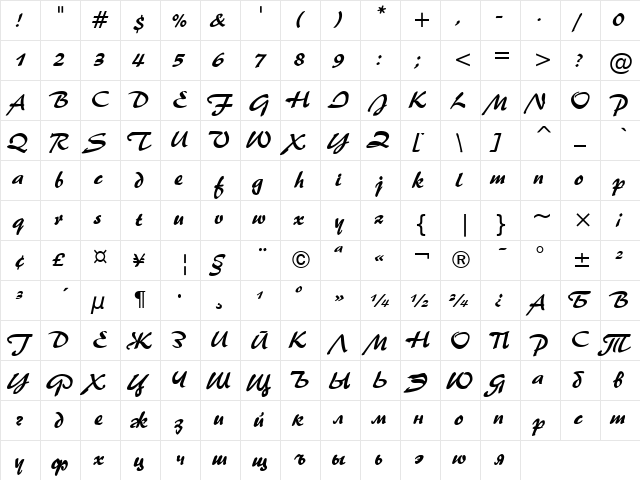
Brush 445 Normal
Design Context for Brush 445 Typeface
Brush 445 brings a calligraphic fluidity to the page — its connecting strokes and expressive curves give it an unmistakably human quality.
Font Pairing: Combine Brush 445 with a simple geometric sans for maximum contrast — the tension between flowing curves and clean structure is a classic typographic pairing.
Pro Tip: Pair Brush 445 with a clean sans-serif for supporting text. The contrast between fluid script and geometric structure creates an elegant typographic hierarchy.